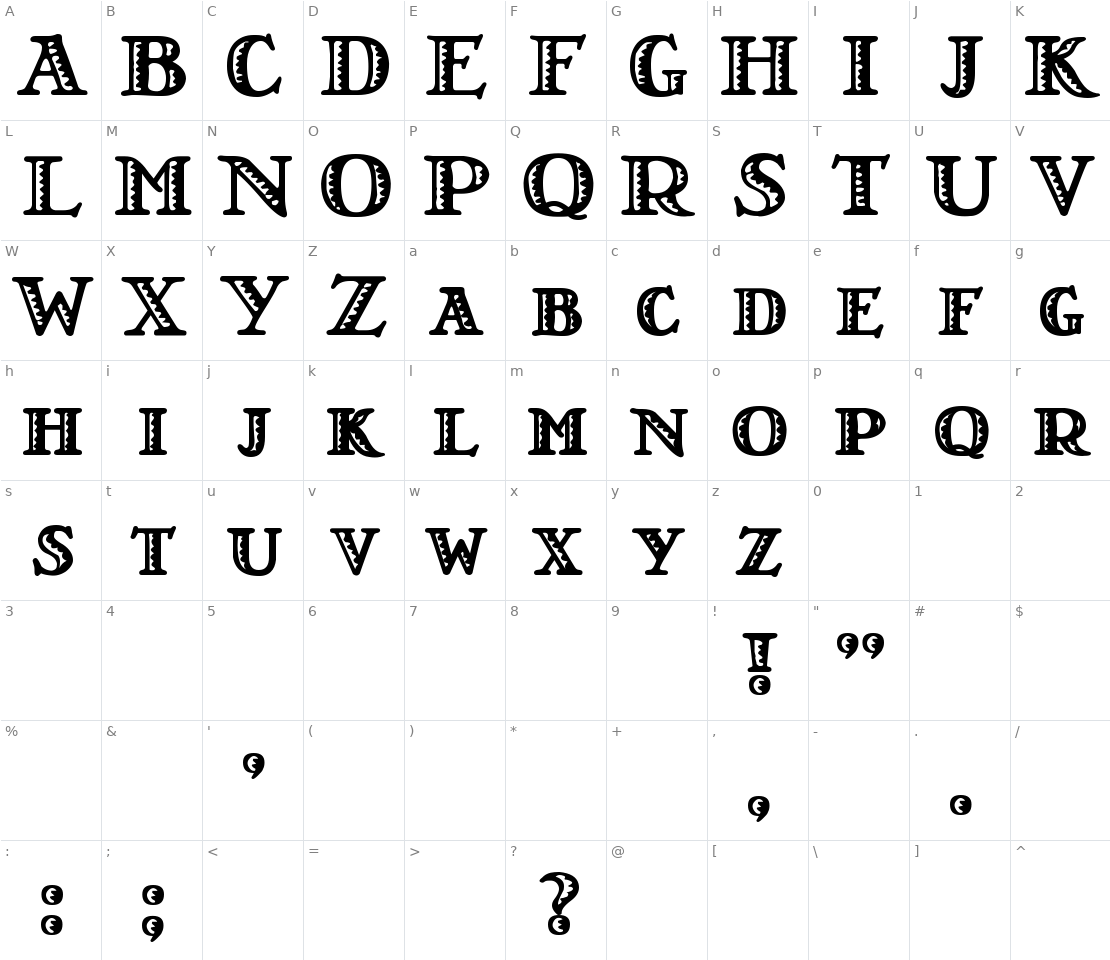
LRT Nutshell Library
LRT Nutshell Library is a decorative slab serif from Lauren Thompson with inline detailing that gives each letterform a distinctly vintage, hand-lettered quality. The ornamental strokes carry a whimsical warmth reminiscent of old children's book covers and Victorian-era signage, playful but with real craft behind it. Best at display sizes for headlines, titles, and packaging where you want retro charm without losing legibility.